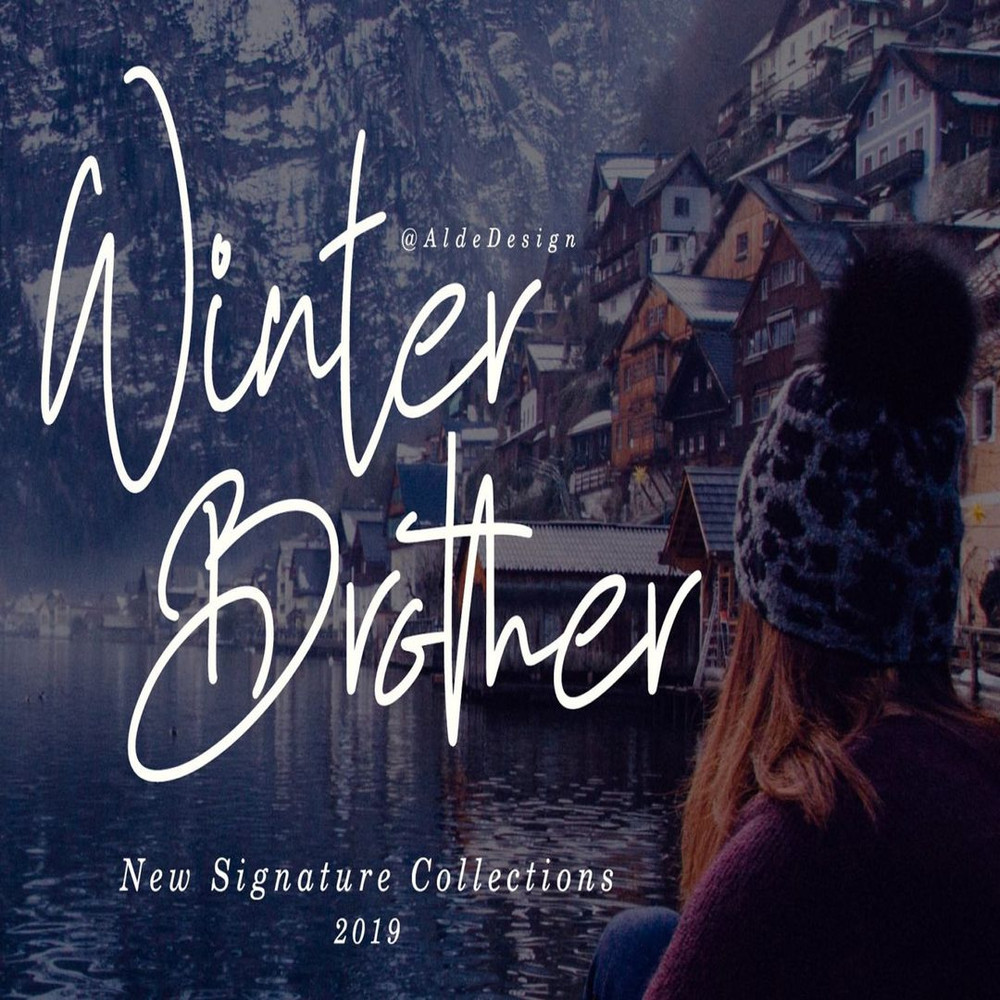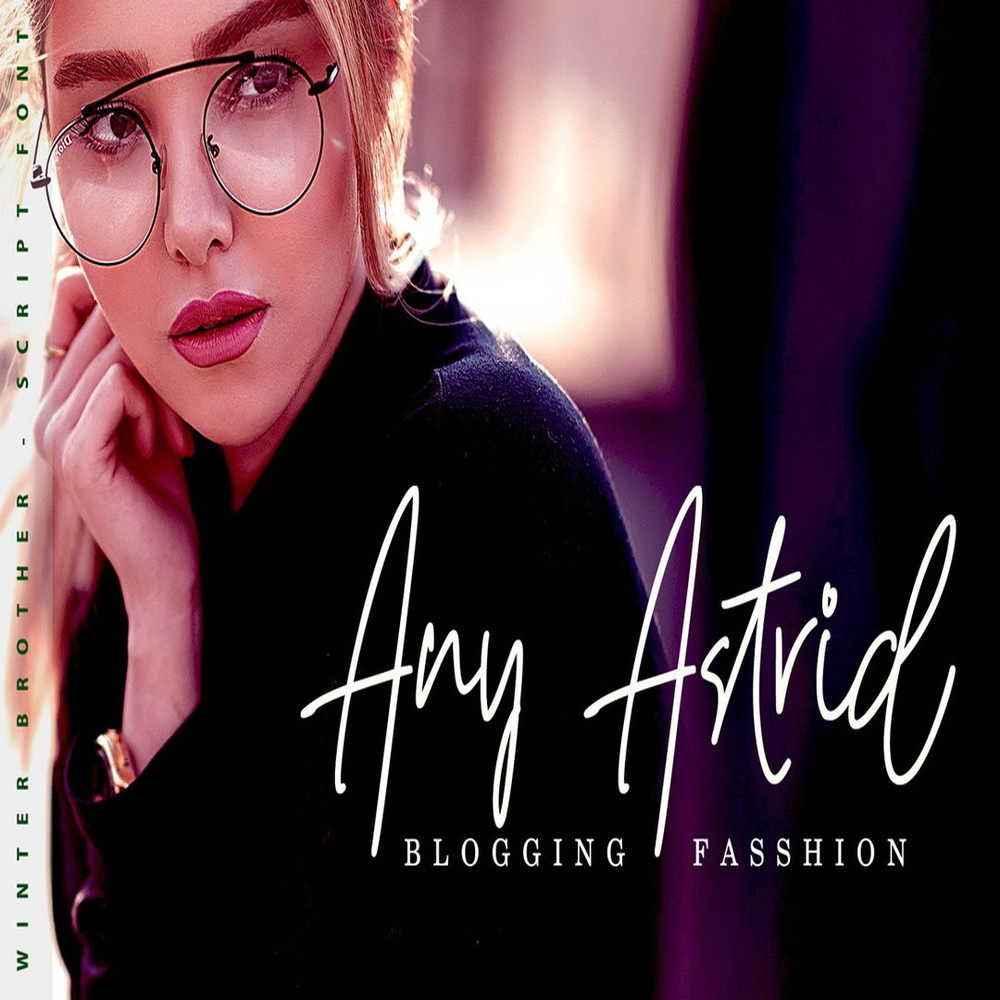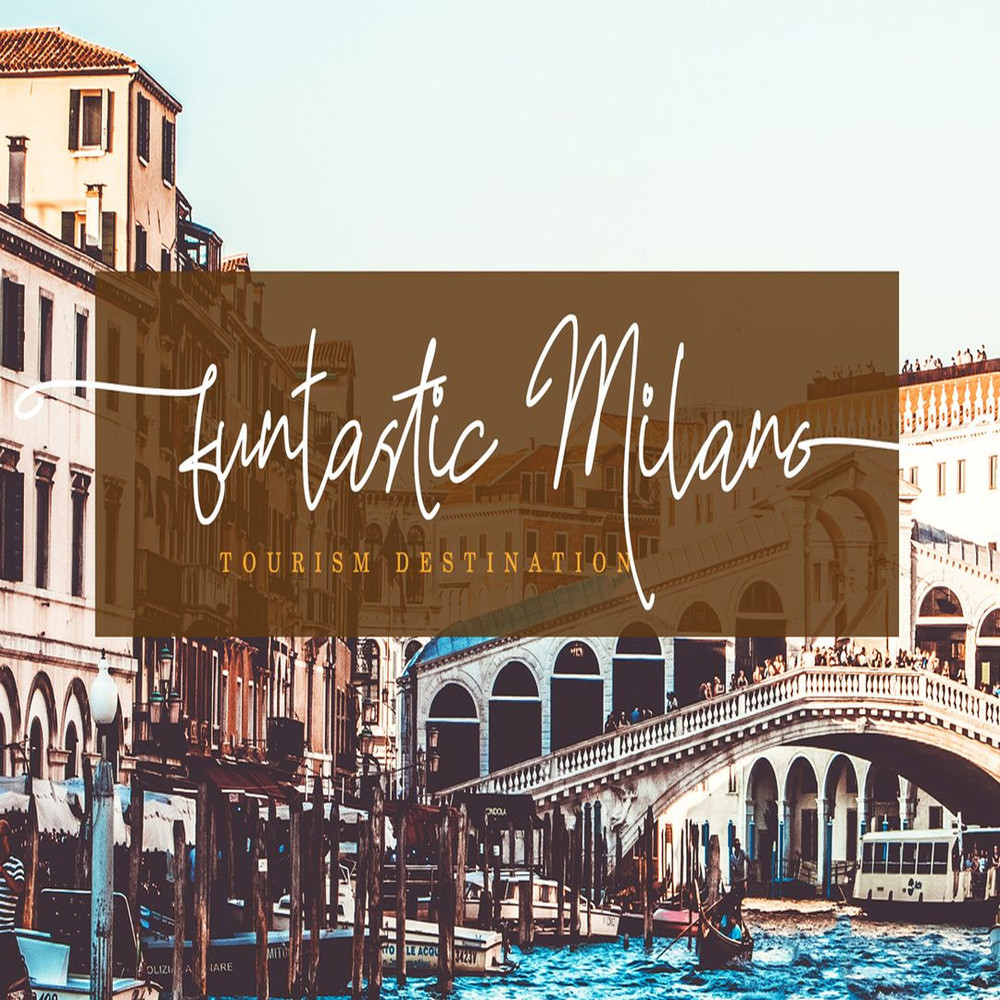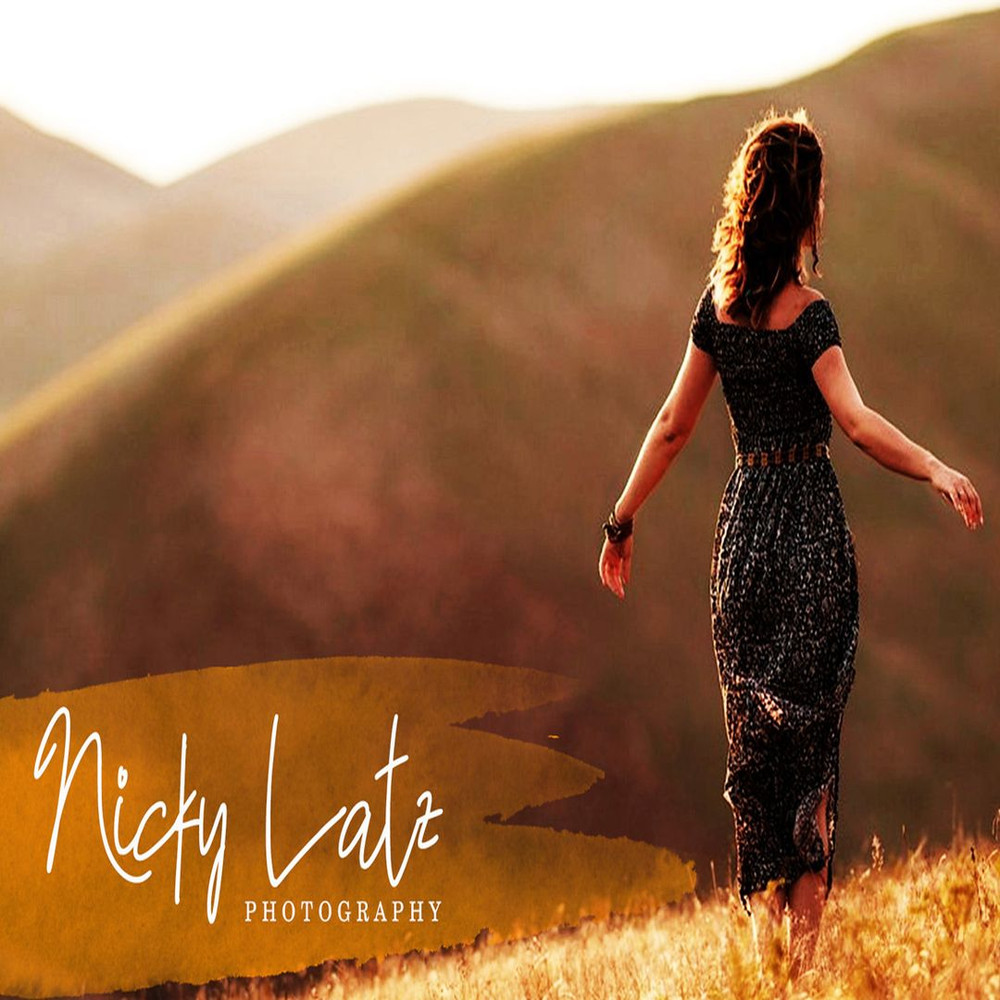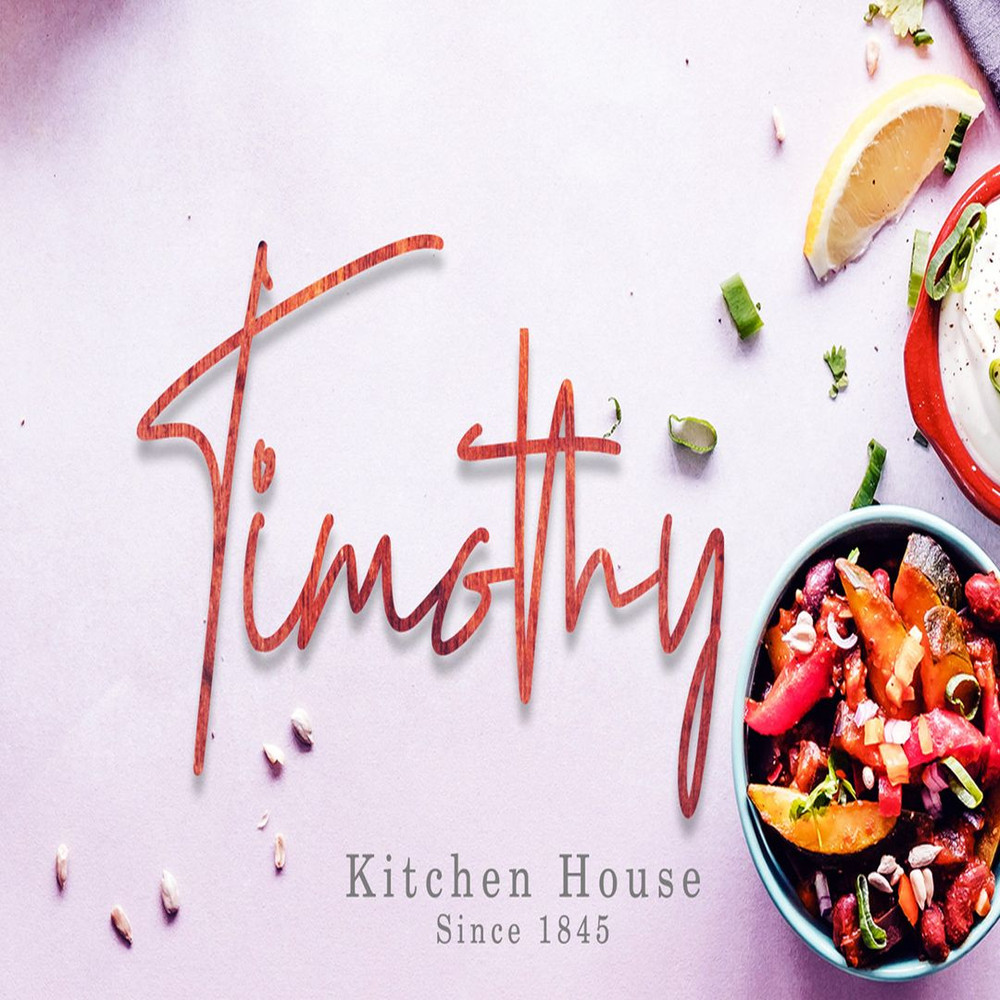
Winter Brother is a simple, yet unique signature typeface. It includes beautiful swashes, that will add an organic feel to any design project!
Each font has:
-Stylish handwritten style
-Ligatures, Swash (ending tail), and titling (beginning tail)
-Multilingual Support